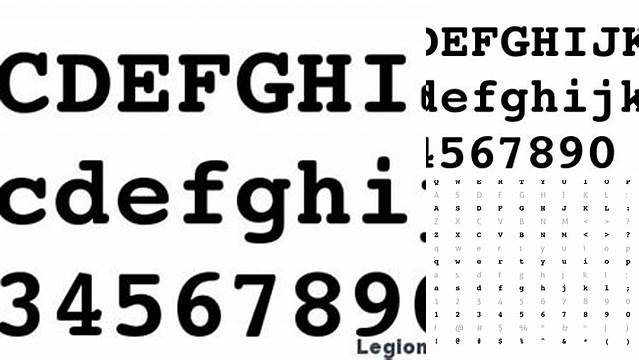
Hey guys! Are you on the hunt for the classic Courier 10 Pitch font? You've come to the right place! This font is a timeless favorite, especially known for its clean, monospaced design. In this comprehensive guide, we'll explore everything about Courier 10 Pitch font, from its history and characteristics to where you can find a free download and how to best utilize it in your projects. Get ready to dive deep into the world of this iconic typeface! We'll cover everything from legal downloads to creative uses, so you can make the most of this fantastic font.
What is Courier 10 Pitch Font?
So, what exactly is Courier 10 Pitch? Well, it's a monospaced font, meaning each character takes up the same horizontal space. This makes it super readable and gives it a distinct, typewriter-esque vibe. Its simplicity and clarity have made it a staple in screenplays, technical documents, and coding environments for decades. But why is it so popular? Let's dive into the historical roots and unique features that make Courier 10 Pitch font such a classic. Understanding its origin helps us appreciate its modern applications and why it remains a relevant choice in today's design landscape. The consistent width of each character in Courier 10 Pitch font ensures perfect alignment, which is crucial for certain document formats and creative projects. We'll explore these applications in detail as we go along.
History and Origin of Courier 10 Pitch
The history of Courier 10 Pitch font is pretty interesting! It was originally designed by Howard “Bud” Kettler in 1955 for IBM typewriters. The goal was to create a font that was not only readable but also economical in terms of space. The result? A monospaced typeface that quickly became an industry standard. Think about all those classic typewriters you've seen in movies – chances are, they were using something similar to Courier! Over time, this font made its way into the digital world, becoming a default option in many operating systems and software applications. Its legacy is tied to the evolution of technology and communication, making it a fascinating piece of design history. Understanding this history gives you a deeper appreciation for the font's design and purpose. Imagine the design constraints of the era and how Kettler's creation addressed them perfectly. It's a testament to the font's enduring appeal and functionality.
Key Characteristics of Courier 10 Pitch
Okay, let's talk specifics. What makes Courier 10 Pitch font stand out? First off, it’s monospaced, as we mentioned. This means each letter, number, and symbol has the same width, which can give your text a uniform, almost mechanical look. This uniformity is perfect for certain applications, like displaying code or creating outlines. The font has a very clean and simple design, making it incredibly readable even at small sizes. This clarity is what makes Courier 10 Pitch font ideal for documents where readability is paramount. Beyond its technical advantages, the font carries a certain aesthetic charm. Its vintage feel adds character to your work, making it a great choice for projects that require a touch of nostalgia or a straightforward, no-frills approach. Think about the impact a well-chosen font can have on your overall design. Courier 10 Pitch's distinct personality can be a powerful asset.
Courier 10 vs. Courier New: What’s the Difference?
You might have heard of Courier New – so, what’s the difference between that and Courier 10 Pitch font? Courier New is essentially an updated version of Courier, designed to be more readable on screens. It has slightly thicker strokes and a more modern feel, while still maintaining that classic monospaced look. Courier 10 Pitch font is the older, more traditional version, often associated with the original typewriter aesthetic. So, which one should you use? It really depends on your project. If you want a vintage vibe, stick with Courier 10 Pitch. If you need something a bit more polished and screen-friendly, Courier New might be the way to go. Ultimately, it's a matter of personal preference and the specific requirements of your design. Consider the context and target audience when making your choice.
Best Uses for Courier 10 Pitch Font
So, where does Courier 10 Pitch font really shine? Well, it's a fantastic choice for screenplays, scripts, and technical documentation. The monospaced nature makes it easy to read and ensures that everything lines up perfectly. It's also a great pick for coding environments, where the uniform character width helps with code readability. Beyond these practical applications, Courier 10 Pitch font can add a vintage or retro touch to your design projects. Think posters, flyers, or even website headers! Its unique aesthetic can set your work apart and give it a distinctive personality. Consider the message you want to convey and how the font's characteristics can support it. The right font choice can elevate your work from good to great.
Courier 10 Pitch Font: A Timeless Classic
In conclusion, Courier 10 Pitch font is a timeless classic that continues to be relevant in the world of design and typography. Its clean lines, monospaced nature, and vintage charm make it a versatile choice for a wide range of projects. Whether you're writing a screenplay, coding, or designing a poster, Courier 10 Pitch can help you achieve a professional and visually appealing result. Its enduring appeal is a testament to its functional design and aesthetic qualities. So, go ahead and explore the possibilities of this iconic font – you might be surprised at what you can create! Thanks for tuning in, guys! Remember, the best designs come from a blend of knowledge, creativity, and a little bit of experimentation. Keep exploring and keep creating!